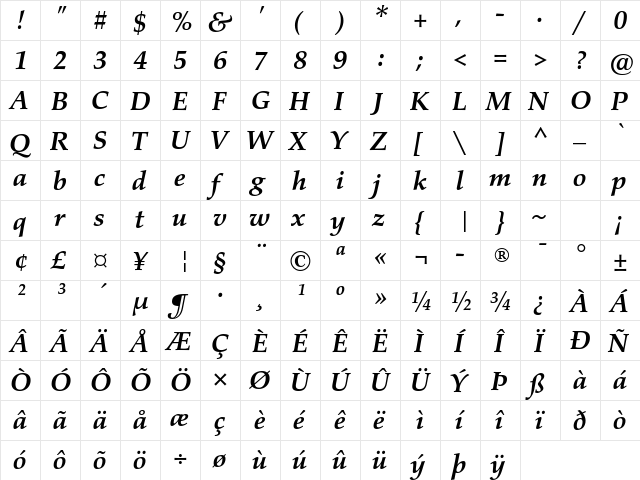
Palatino eText Bold Italic
Bold Italic · Linotype GmbH Hermann Zapf and Akira Kobayashi ·
Design Context for Palatino eText Typeface
Palatino eText offers clean, dependable letterforms without strong stylistic allegiance, making it a practical choice for designers who need flexibility. The dynamic lean of this cut emphasises speed and emphasis in any layout. Its bold stroke weight gives it real presence on the page.
Pro Tip: Try Palatino eText for annotation and caption copy alongside an upright companion — the contrast in angle creates a dynamic but ordered typographic system.